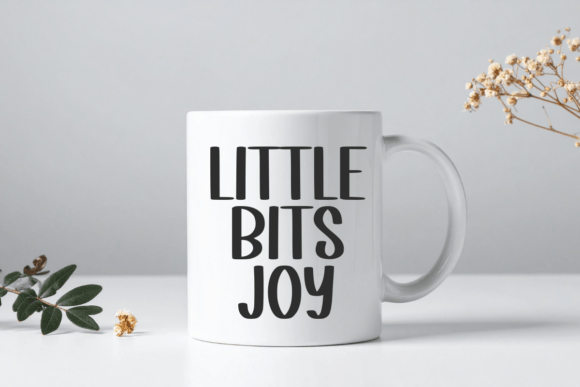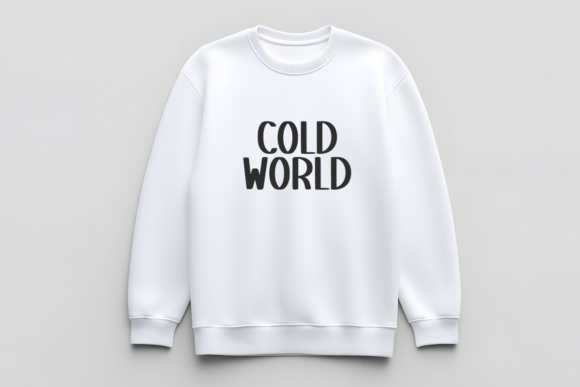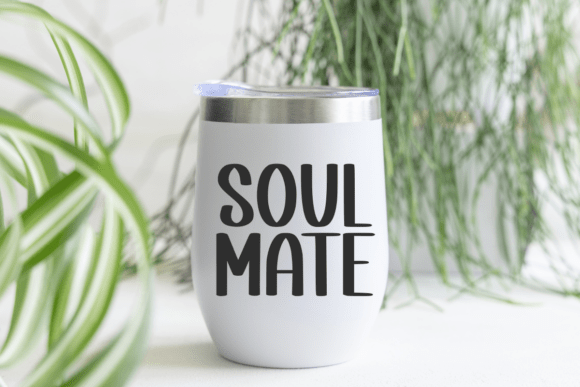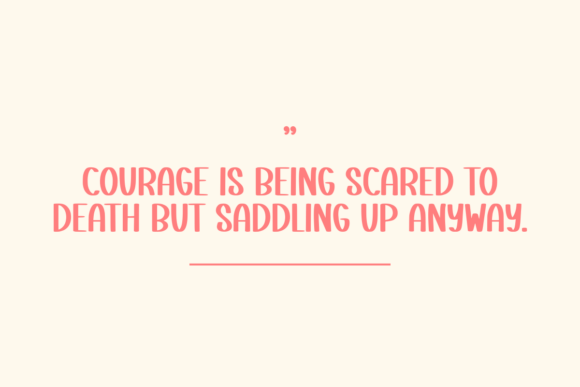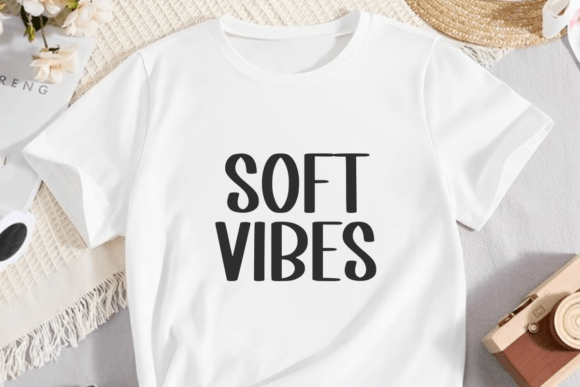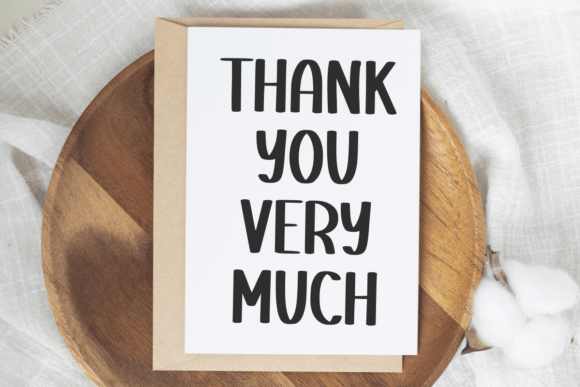
Discover the Charm of Everyday Moments Font: Elevate Your Designs with a Personal Touch
In the world of design, fonts play a crucial role in conveying the tone and personality of a brand or project. For designers seeking to add a touch of warmth and approachability to their work, the Everyday Moments font is a breath of fresh air. This charming, hand-drawn sans serif font is designed to capture the beauty of the mundane, making it perfect for lifestyle bloggers, scrapbookers, and social media influencers.
The Unique Characteristics of Everyday Moments Font
The Everyday Moments font boasts a tall x-height and slightly irregular line weights, giving it an authentic, “journal-entry” feel. This distinctive design makes it an excellent choice for those who want to add a personal touch to their work. The font’s hand-drawn nature lends itself to a sense of imperfection, making it relatable and endearing to readers.
Ideal Applications for Everyday Moments Font
The Everyday Moments typeface is perfectly suited for various applications, including:
- Lifestyle Blogging: Add a personal touch to your blog posts and make your readers feel like they’re reading a friend’s journal.
- Scrapbooking: Create beautiful, heartfelt scrapbook pages that tell a story.
- Social Media: Make your captions stand out with a warm and approachable font that resonates with your audience.
- Daily Gratitude Apps: Use the Everyday Moments font to create a sense of intimacy and connection with your users.
- Cozy Kitchen Labels: Add a touch of warmth to your kitchen labels and make them feel like a personal note from a friend.
Design Pairings for Everyday Moments Font
The Everyday Moments font pairs beautifully with minimalist line art and earthy, organic color palettes. Some suggested design pairings include:
- Olive Green: A muted, earthy green that complements the font’s natural feel.
- Terracotta: A warm, earthy red that adds a cozy touch to your designs.
- Minimalist Line Art: Simple, delicate illustrations that complement the font’s hand-drawn nature.
Why Choose Everyday Moments Font?
So, why choose the Everyday Moments font for your next project? Here are just a few reasons:
- Unique and Authentic: The font’s hand-drawn nature makes it stand out from more traditional fonts.
- Approachable and Warm: The font’s design makes it perfect for creating a sense of connection with your audience.
- Versatile: The Everyday Moments font can be used in a variety of applications, from digital to print.
The Everyday Moments font is a charming, hand-drawn sans serif font that’s perfect for designers who want to add a personal touch to their work. With its unique characteristics, ideal applications, and design pairings, this font is sure to elevate your designs and make them feel more approachable and warm. Whether you’re a lifestyle blogger, scrapbooker, or social media influencer, the Everyday Moments font is a great choice for your next project.